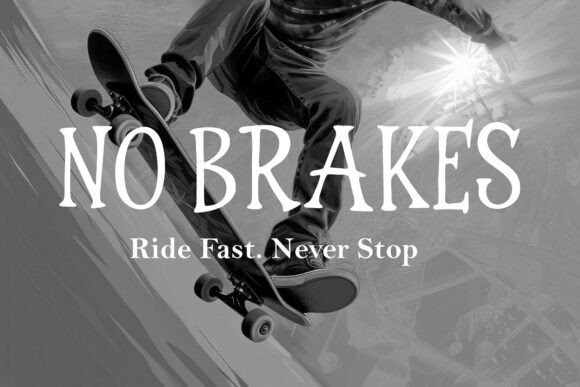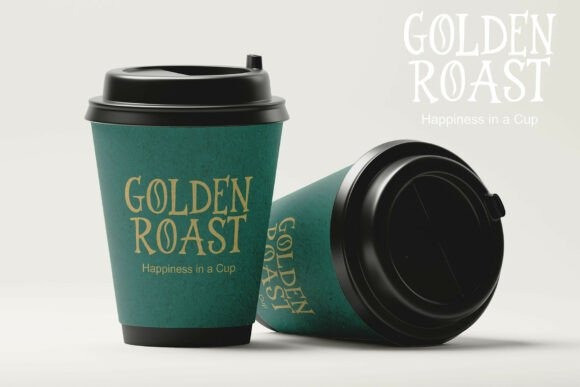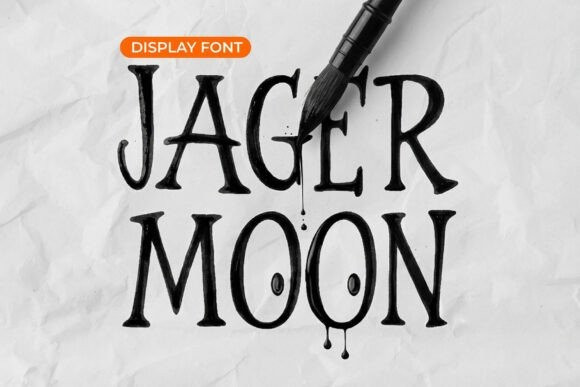
Jager Moon Font
Jager Moon Font is a refined serif display font meticulously crafted with classic typographic inspirations and conventional lettering styles. Its harmonized proportions coupled with graceful serif accents empower a sophisticated and high-quality vibe for a wide spectrum of design endeavors.
Jager Moon’s impressive suite comprises uppercase and lowercase varieties, numerals, punctuation, and a multilingual component, thereby making it an exceptional choice for branding, editorial settings, logos, product packaging, posters, and even book covers.
Its distinct single-style framework ensures a sleek and user-friendly experience, while strongly arguing its unique visual persona. Jager Moon’s characteristic classic serif underpinnings bring warmth and genuineness, rendering it perfectly suited for designs demanding grace, heritage, and clarity.
Whether it’s striking headlines or elegant typographic presentations that you’re working on, Jager Moon invariably delivers engaging and consistent results that transcend time. Delve into the charm of Jager Moon and add a hint of time-honored elegance to your design portfolio today.